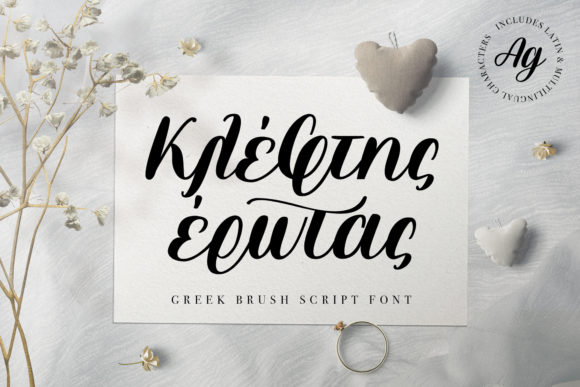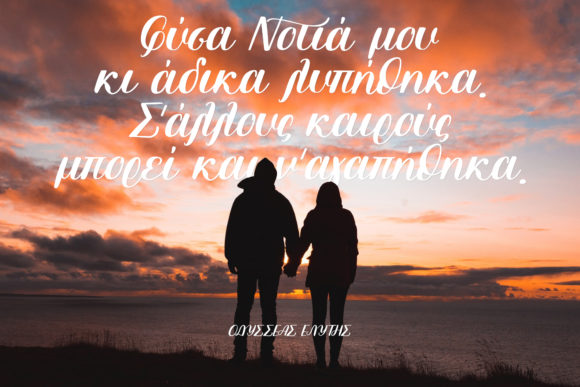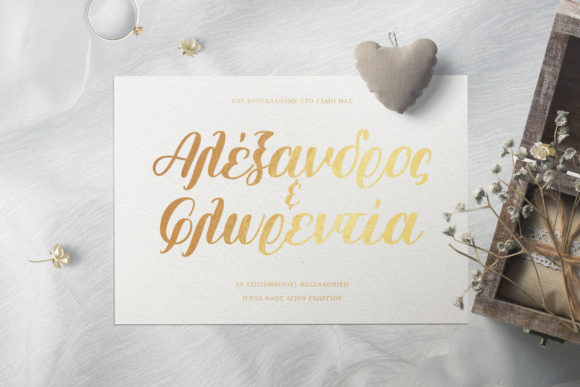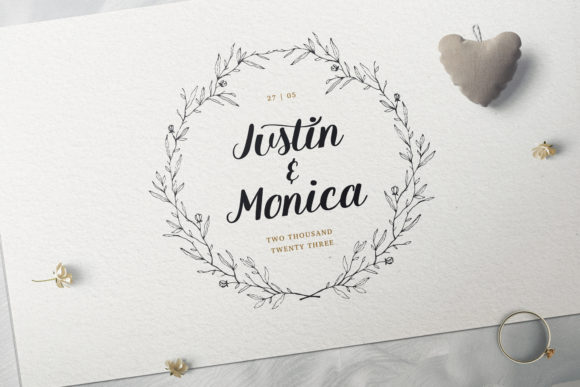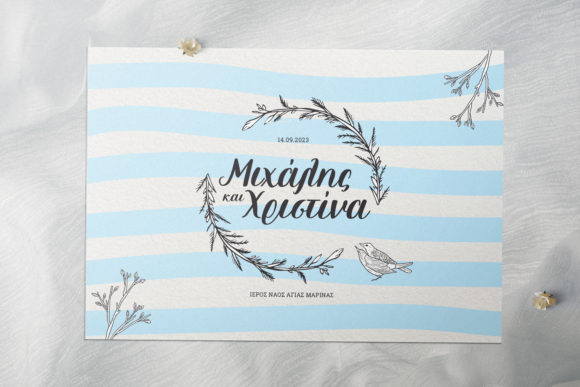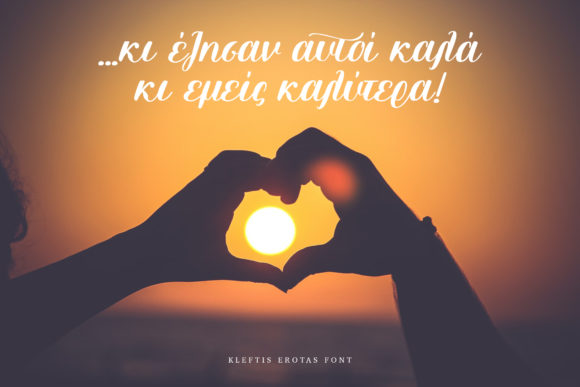
Kleftis Erotas Font
About Kleftis Erotas Font
Kleftis Erotas is a gorgeous calligraphy font. It’s unique bold characters will give authenticity and style to your designs. It is the ideal font to create stunning wedding invitations, book covers, Instagram quotes and much more.